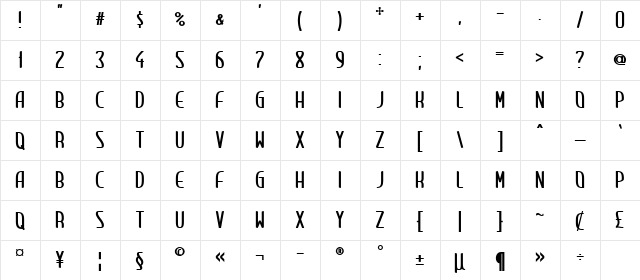
Clip Condensed Regular
| Designer | Denis A Serikov |
Design Context for Clip Typeface
Clip takes a measured approach to typography — its balanced proportions and neutral character make it a reliable workhorse for both digital and print work. The condensed width makes it efficient for tight spaces without sacrificing legibility.